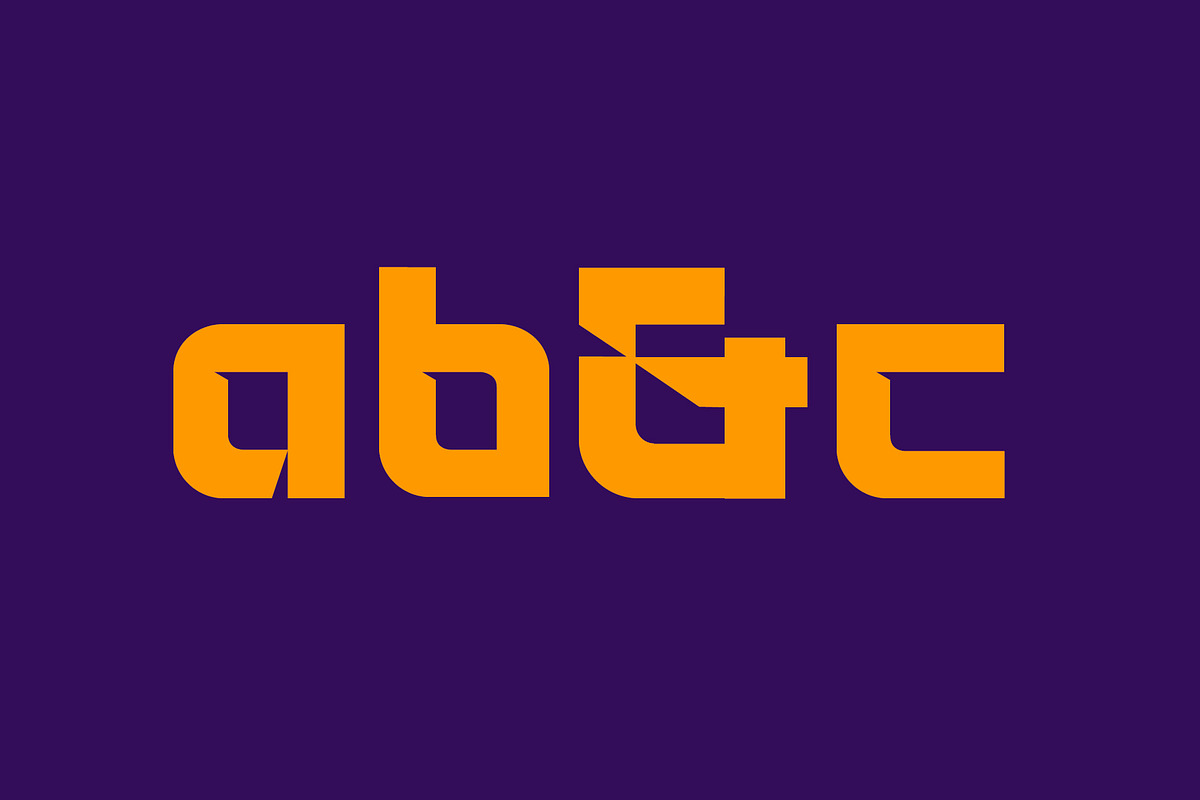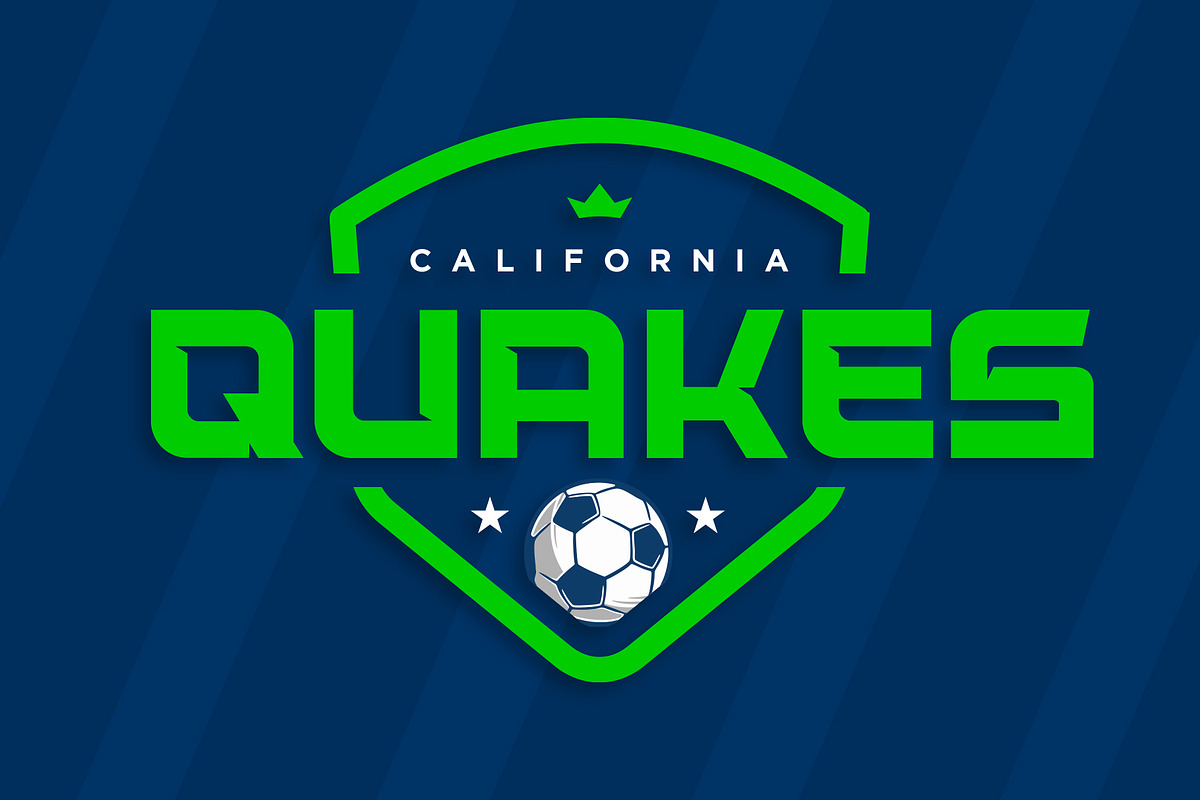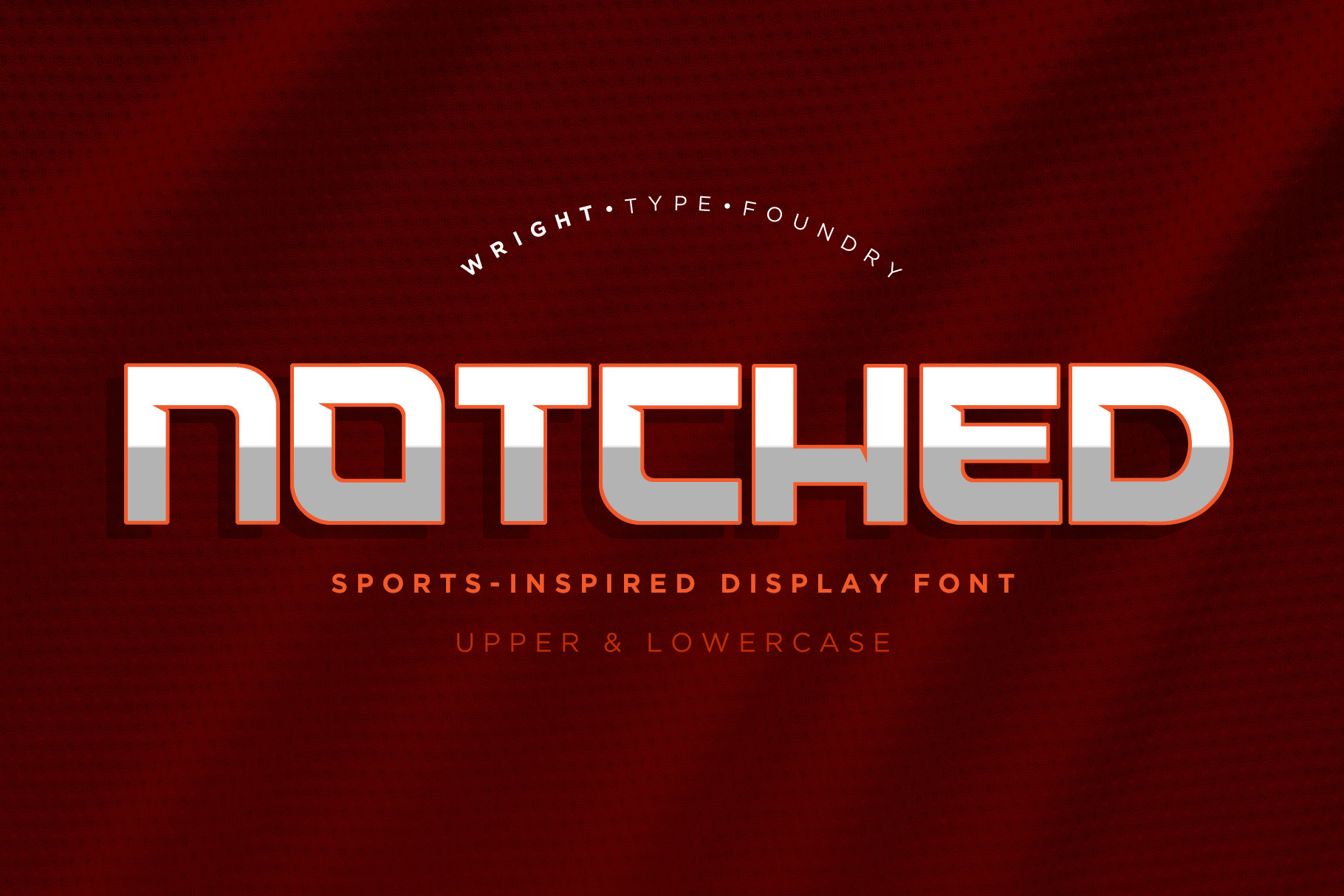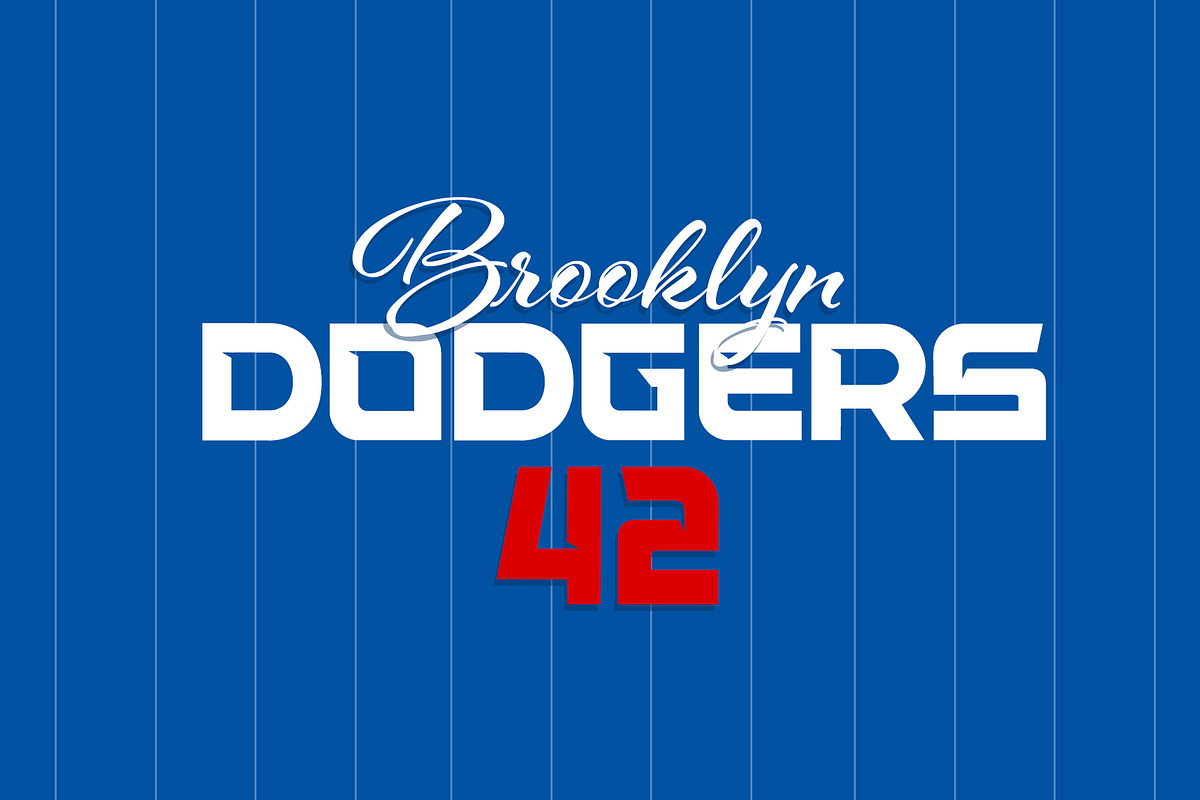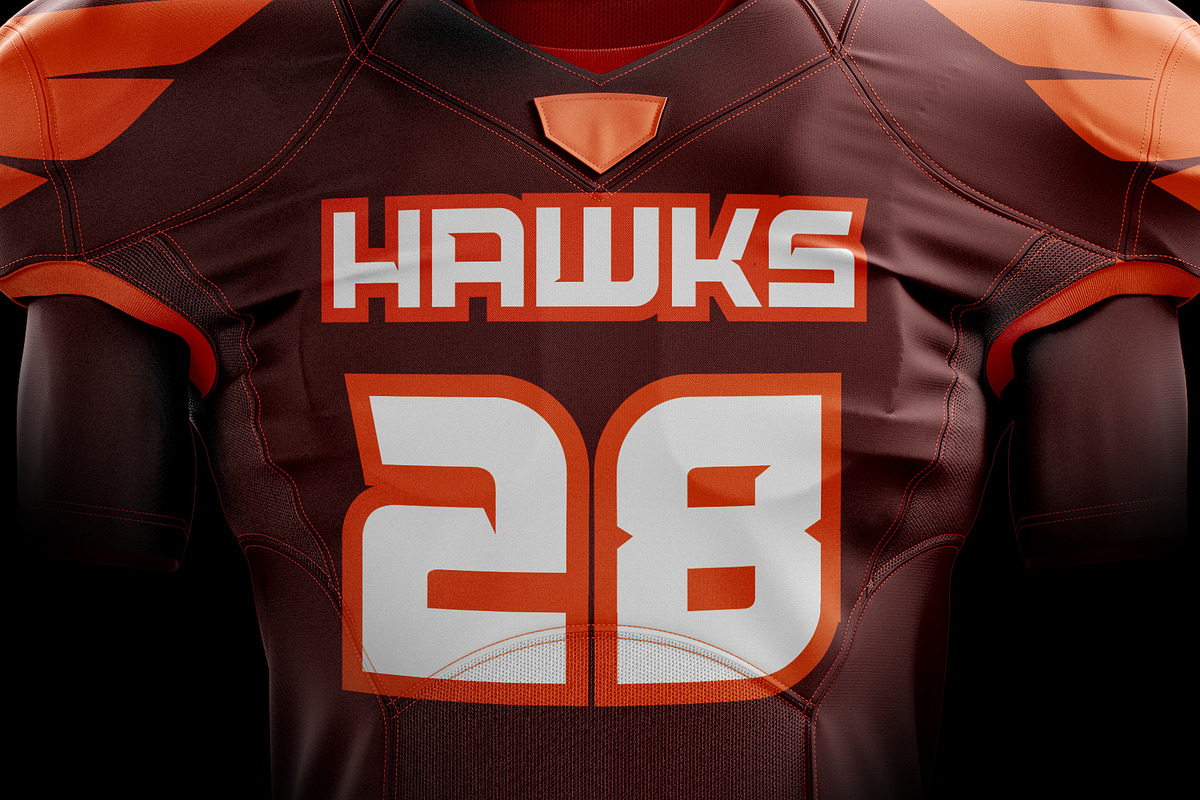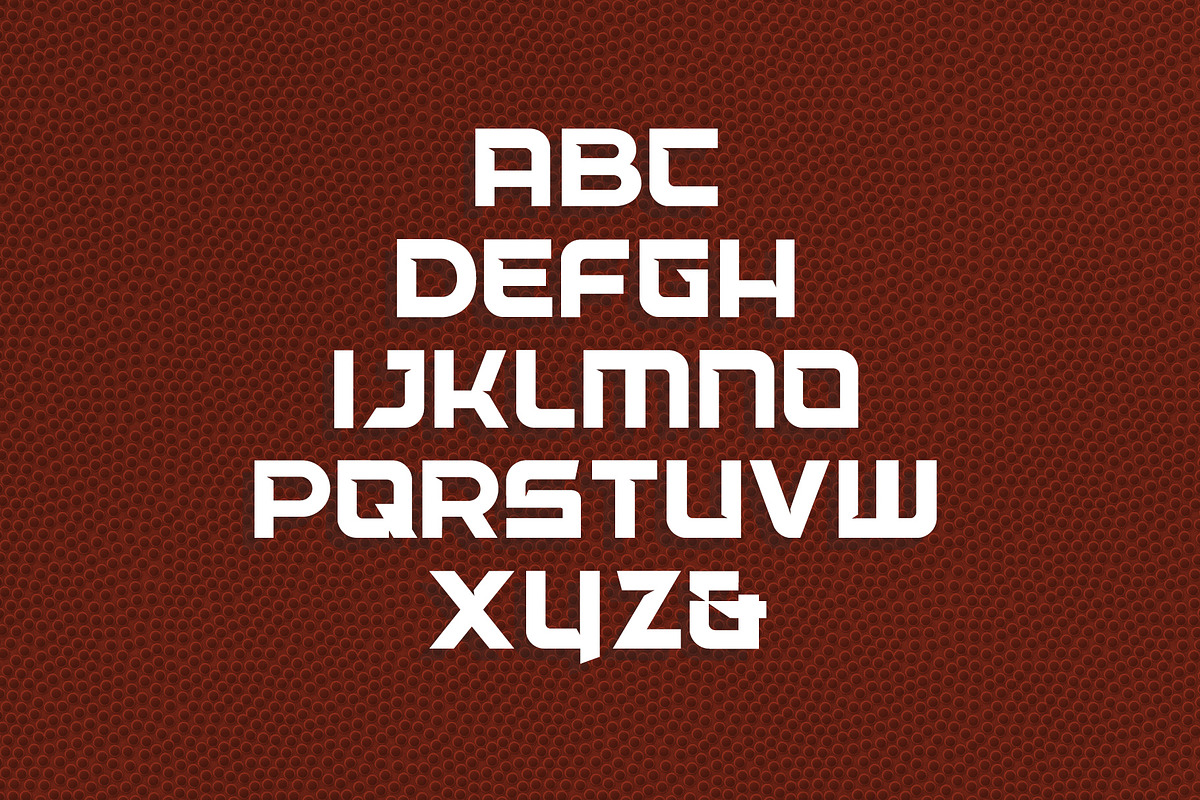
Notched | Sports-Inspired Font
Notched is inspired by the bold, aggressive, must-win attitude found in team sports. This powerful and energetic font was built specifically with sports branding and similar projects in mind. This is a great choice for a sports logo, team logo, jersey lettering and numbers, sports ads, social media, and especially headlines.